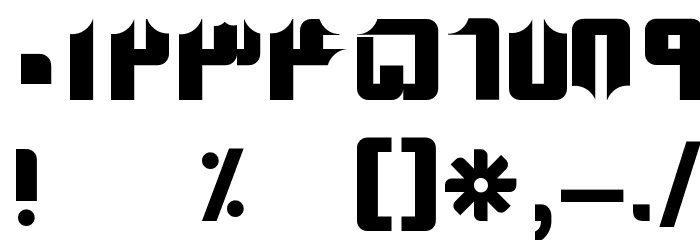
Sinaa Fancy Font
This font exhibits a bold and decorative style with a unique geometric flair. The characters are designed with sharp angles and a blocky appearance, giving them a futuristic and tech-inspired look. The uppercase letters are particularly striking, with intricate cutouts and symmetrical shapes that create a sense of movement and energy. The lowercase letters maintain the same aesthetic, ensuring consistency across the typeface. Numbers and special characters are equally stylized, making them suitable for creative and modern designs. The font's distinctiveness makes it ideal for projects that require a strong visual impact.
A bold, geometric, and decorative font with a futuristic style.
- Font: Sinaa Fancy
- Proposed Projects: Ideal for branding, posters, video game titles, and tech-related designs.
- Overall Style: Futuristic, Modern